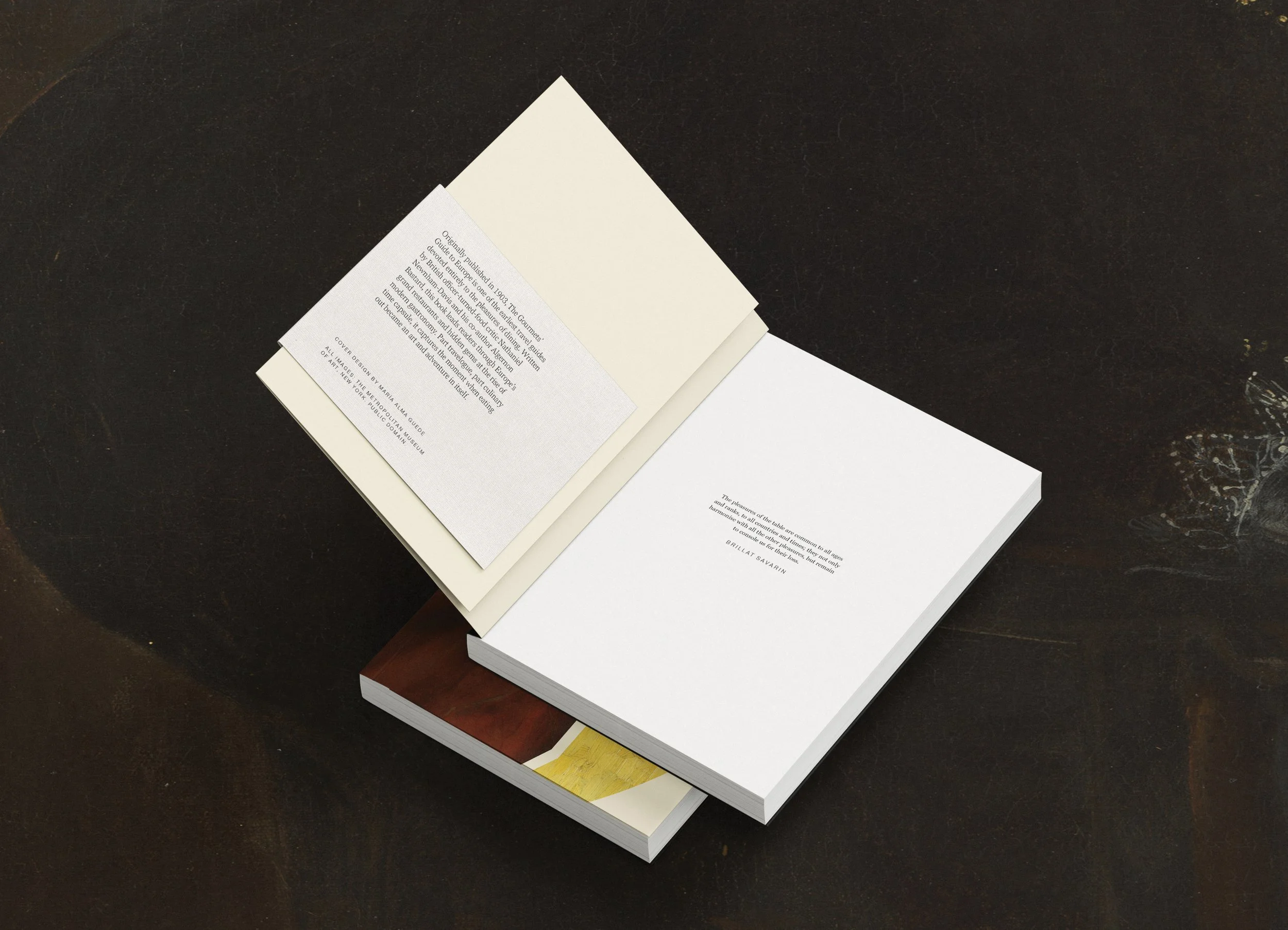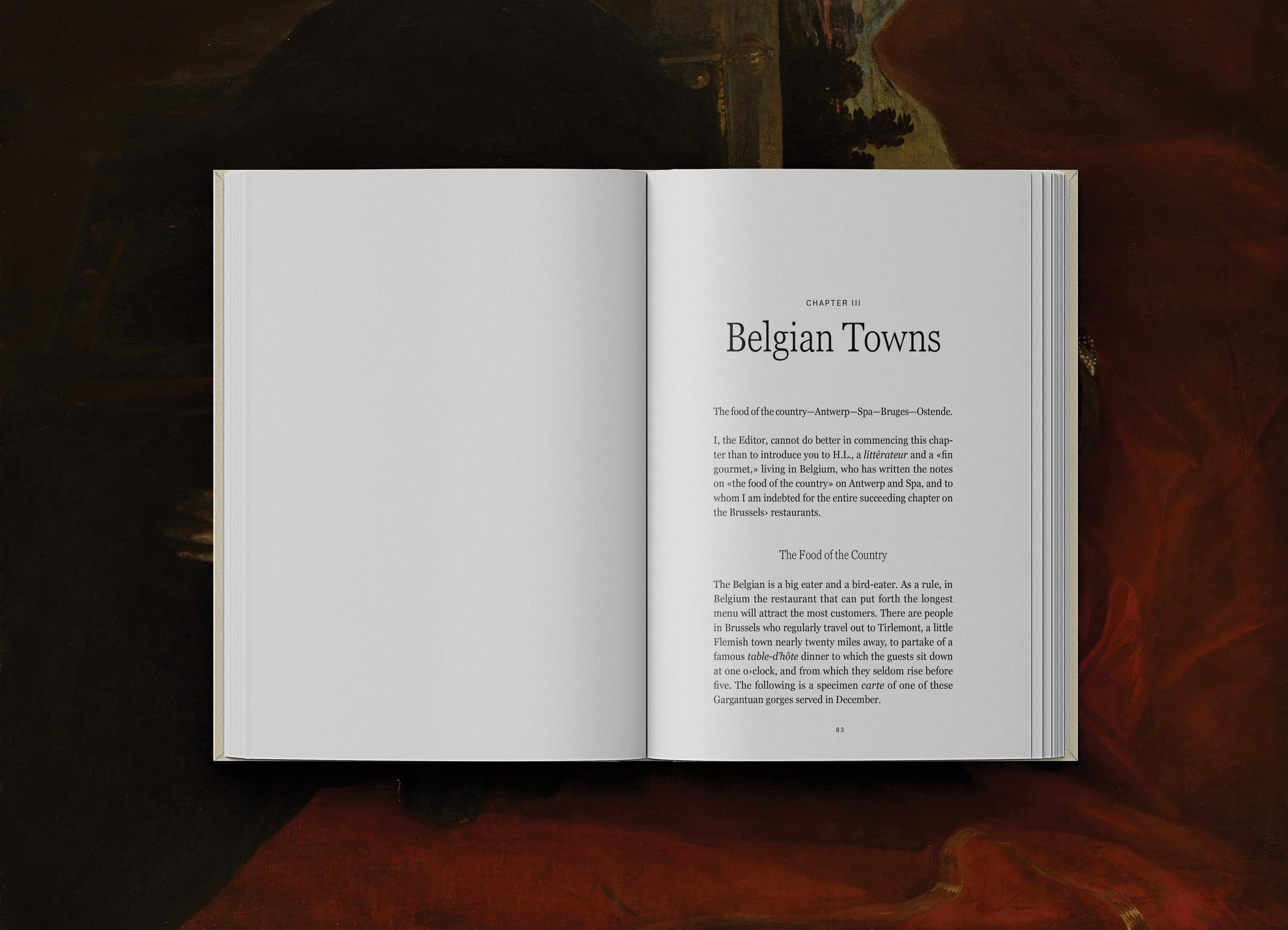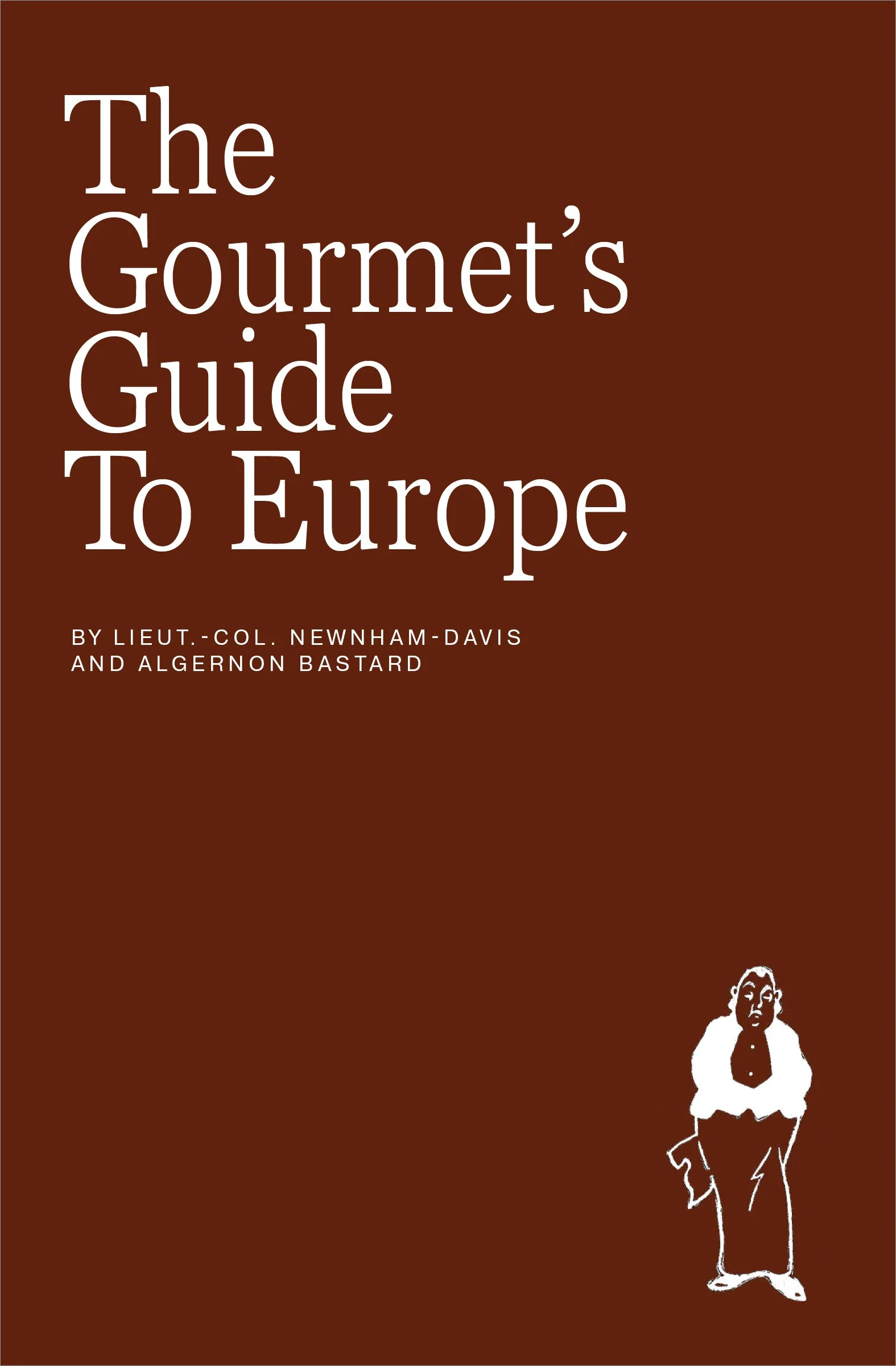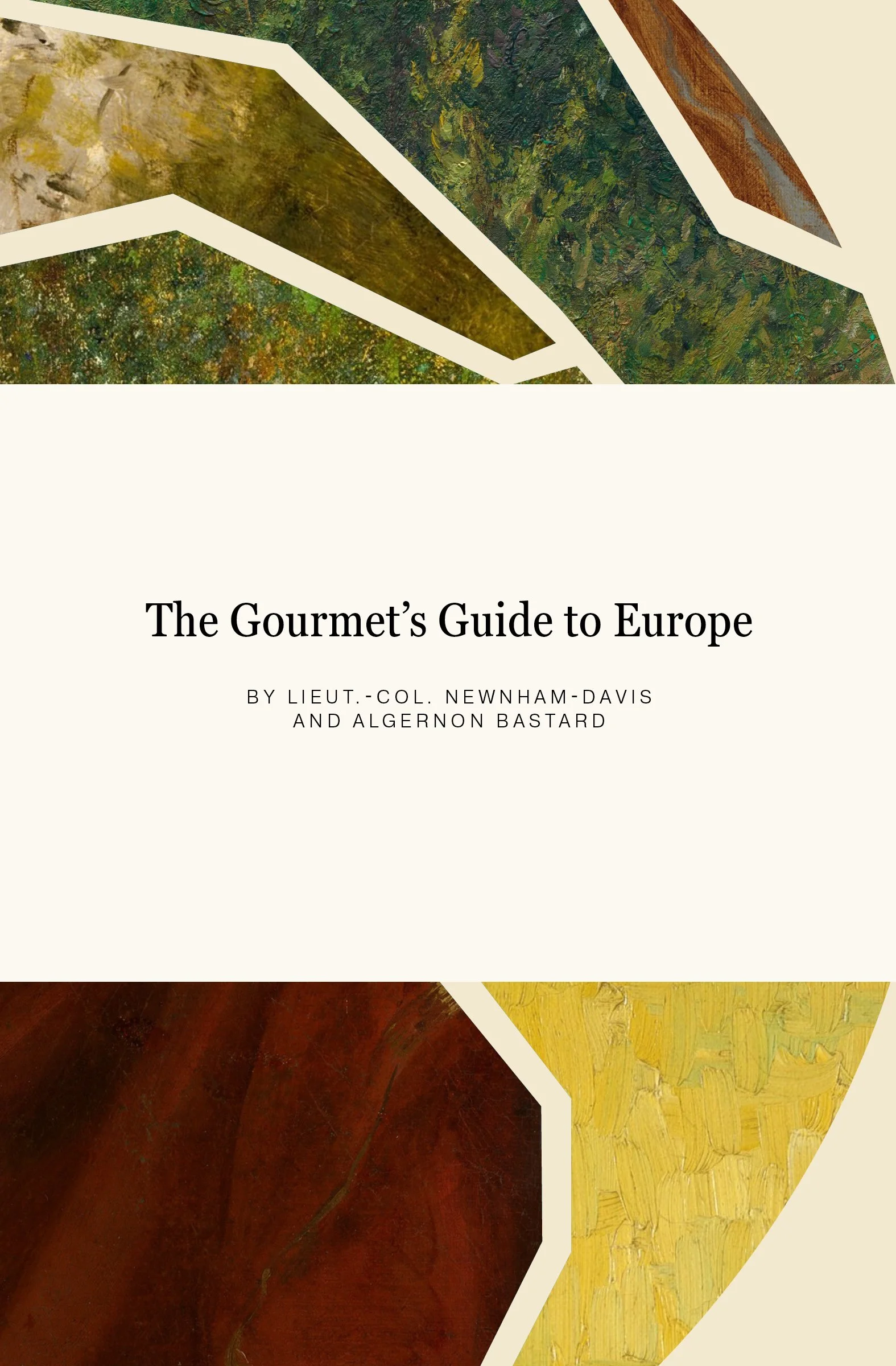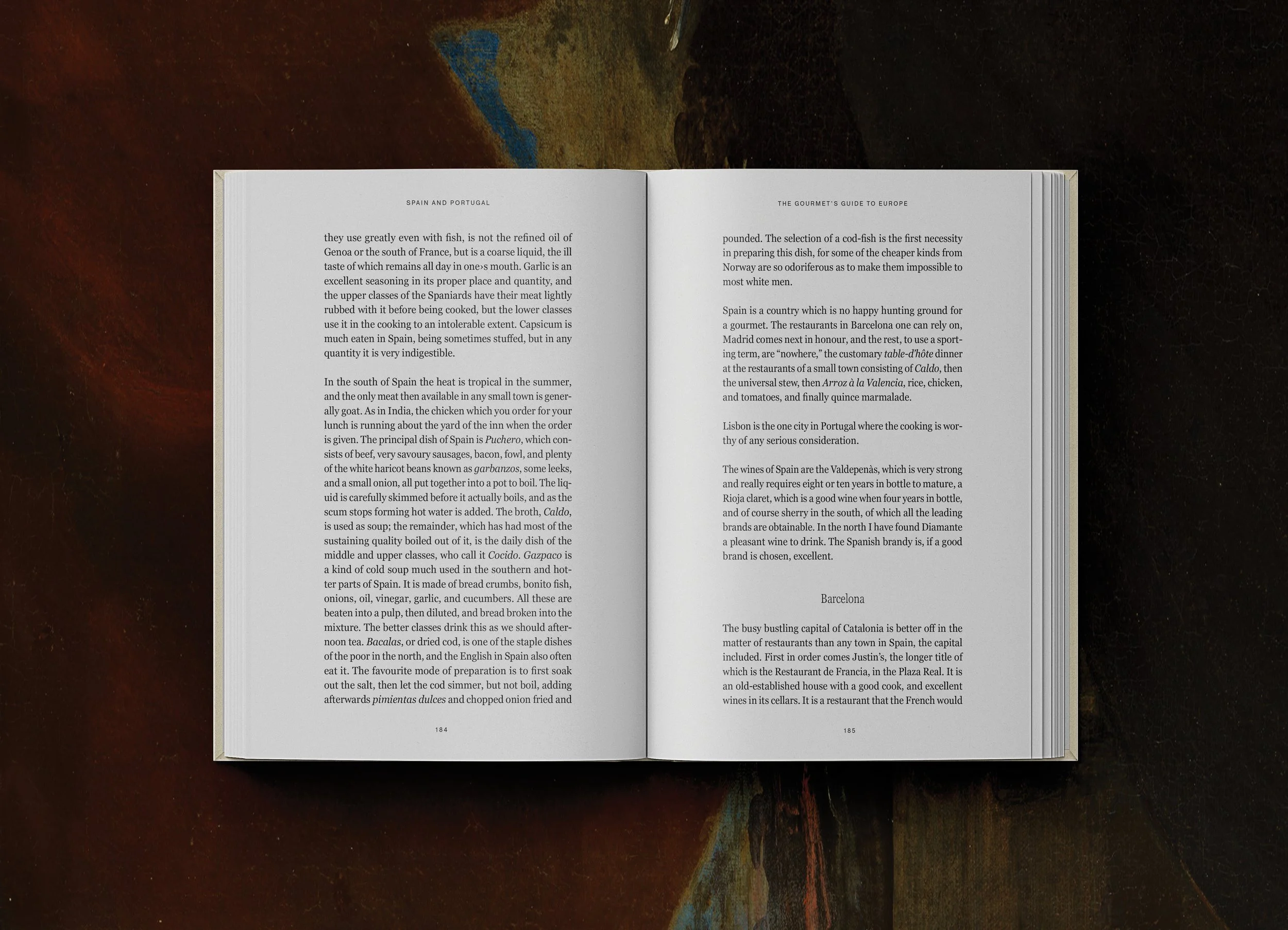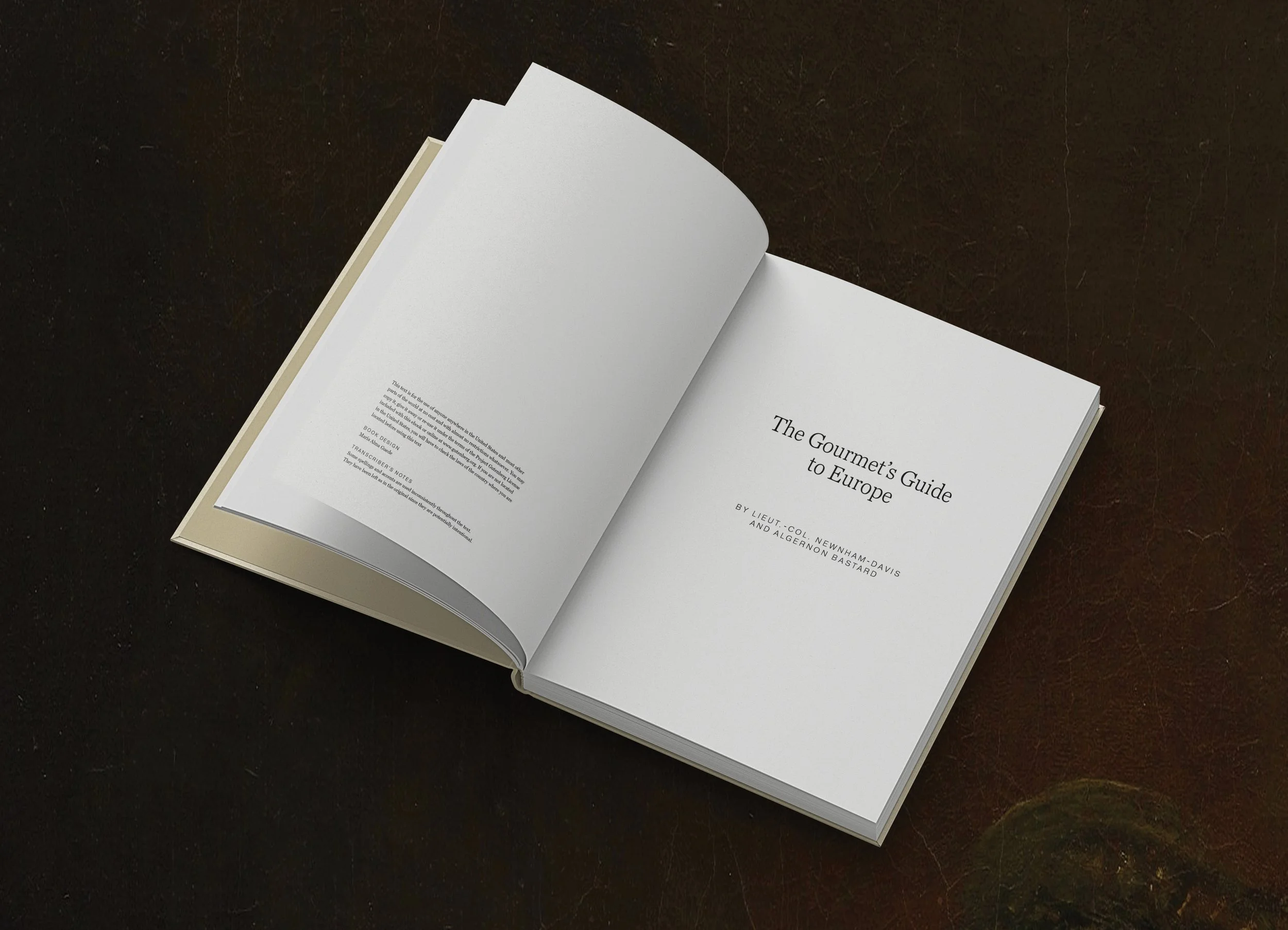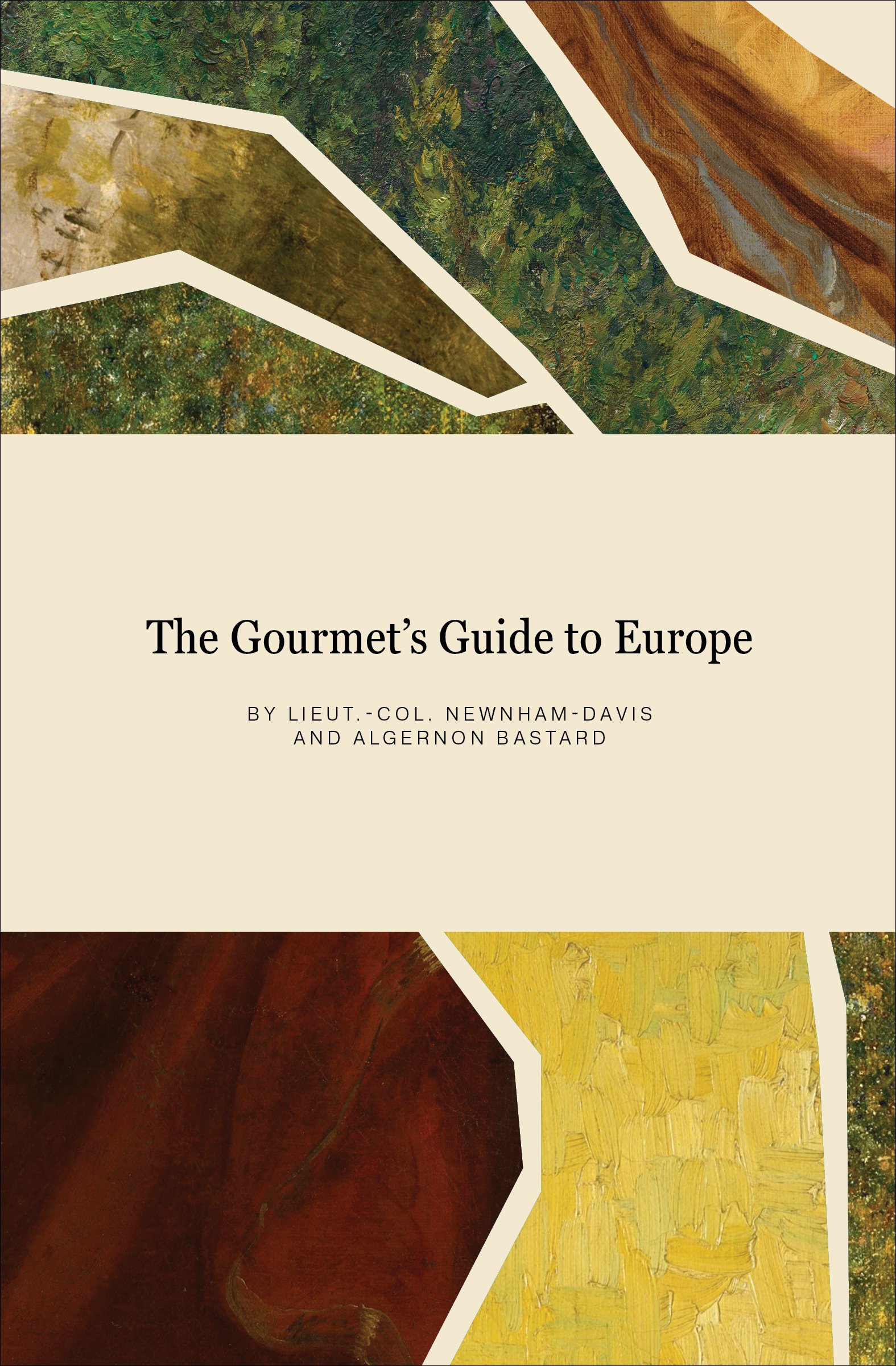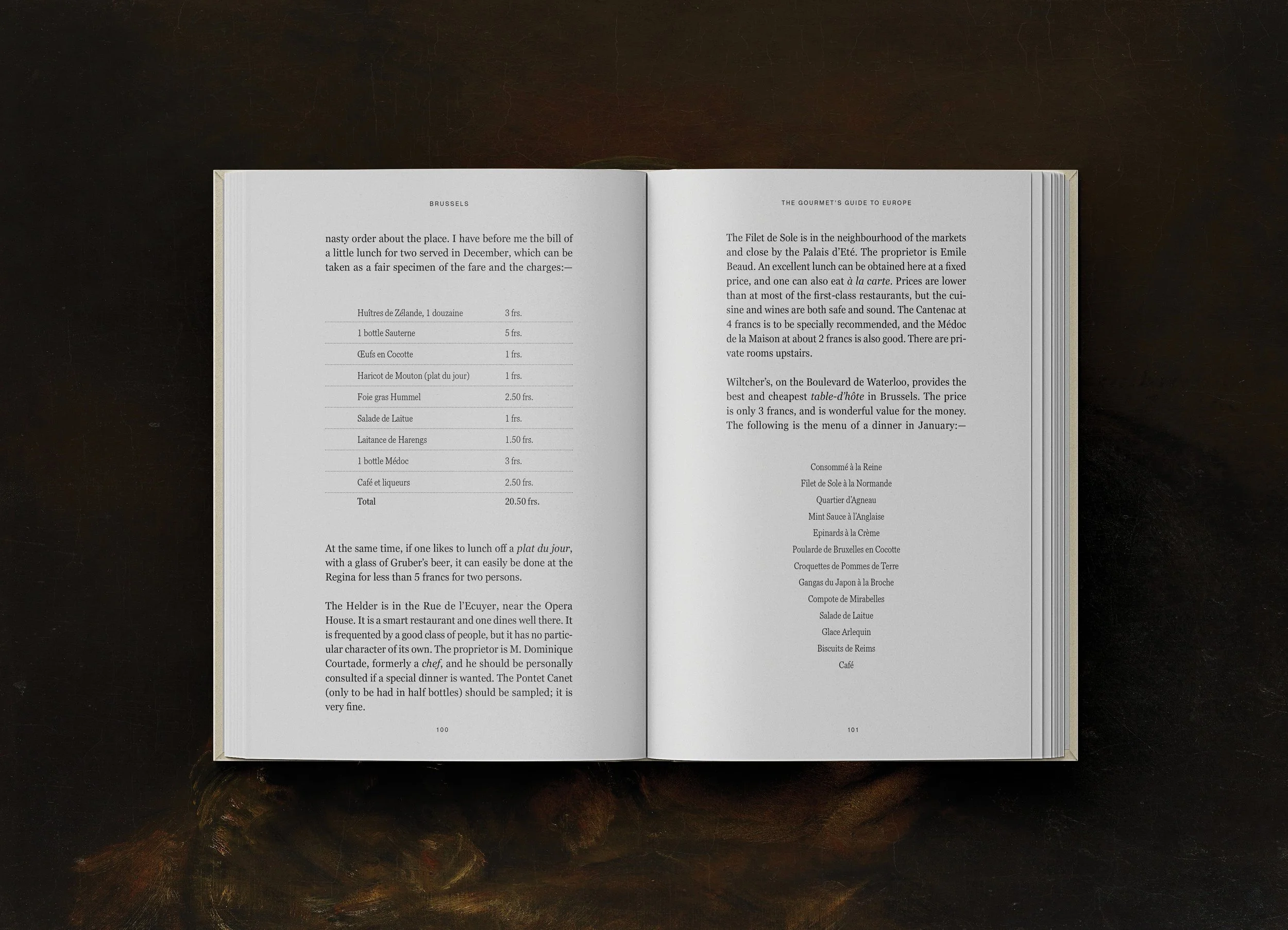
The Gourmet’s Guide to Europe
by Lieut.-Col. Newnham-Davis and Algernon Bastard
Book design by María Alma Guede Piña
Project Description
This book was designed as if the cover were a plate. Shapes suggest the elements of a balanced meal, each filled with textures drawn from artwork of the late 1800s and early 1900s, the same time period when the book was written.
The book is wrapped with a fabric belly band, like a napkin laid over the plate. It adds a tactile detail and a little surprise when removed.
Inside, the typography works like ingredients in a recipe. Georgia Pro and Pragmatica are used throughout the text, but the weight, size, case and tracking shift slightly to add texture and to highlight items like menus, locations, and tables.
Intended Audience
This book is for anyone who loves to travel, eat, and especially explore the world through its food. It offers a glimpse into the culinary landscape of European cities in the early 20th century, capturing the excitement of dining out at a moment when restaurants were becoming destinations in themselves. For those who plan trips around meals, this guide becomes a time capsule of how people enjoyed the same pleasures still celebrated today, just over a hundred years earlier.
Type
10/12 Georgia Pro Regular x 21p0